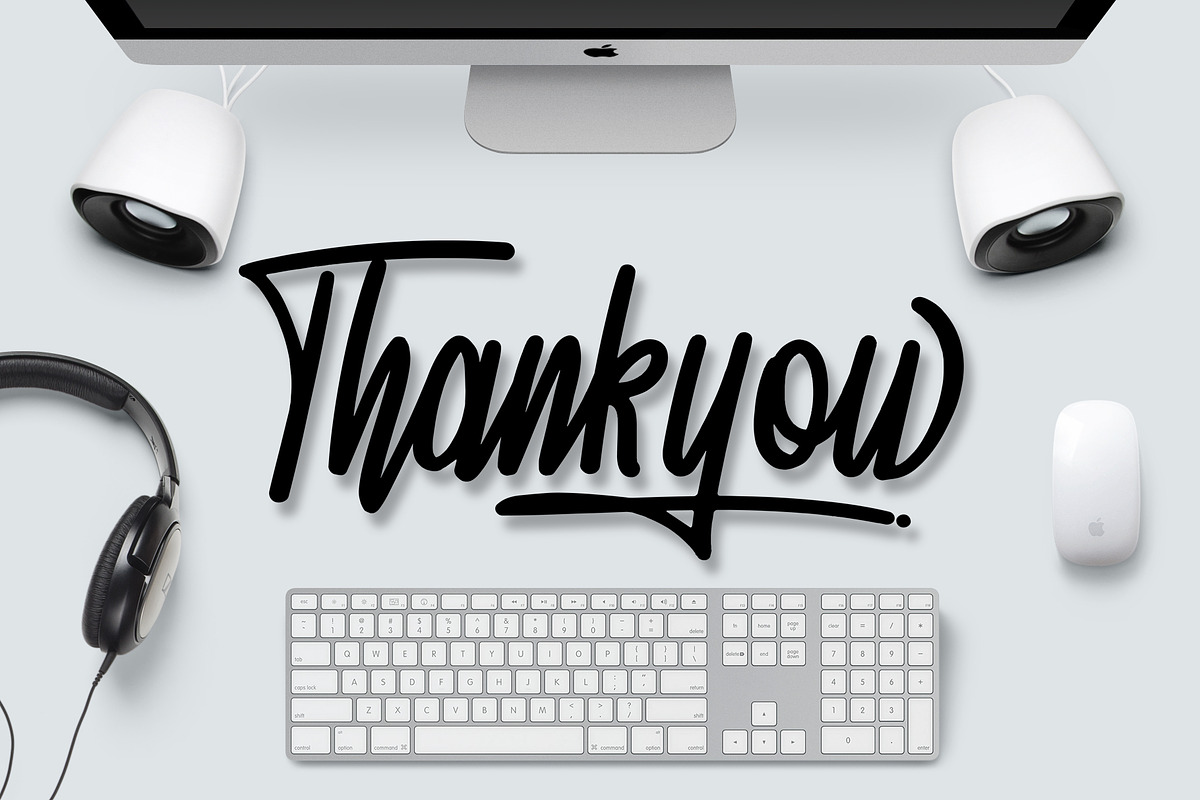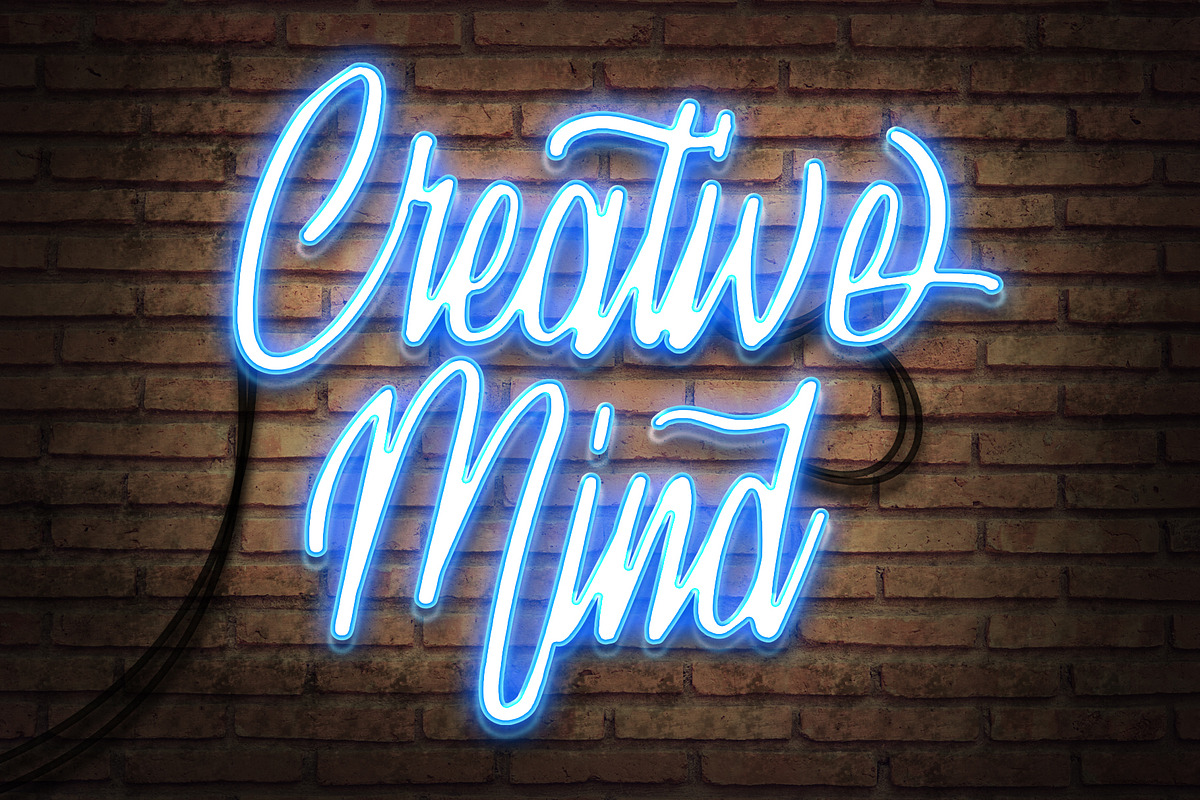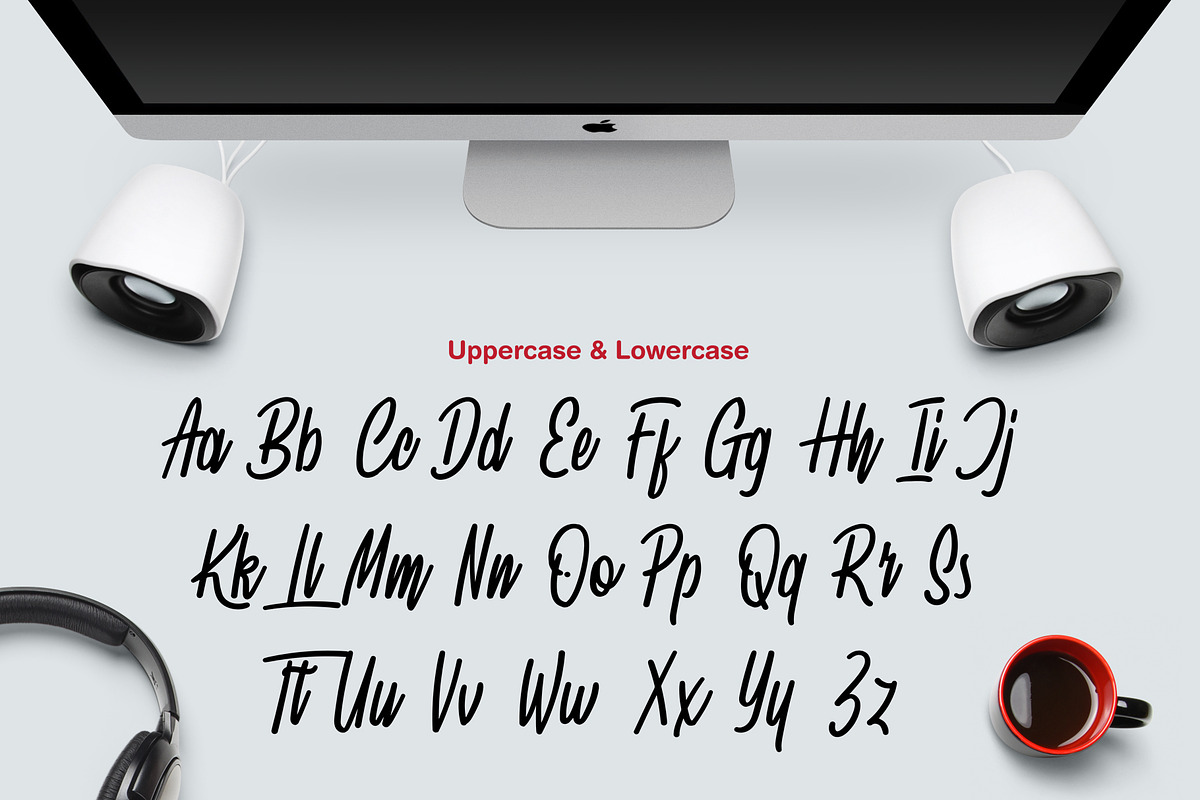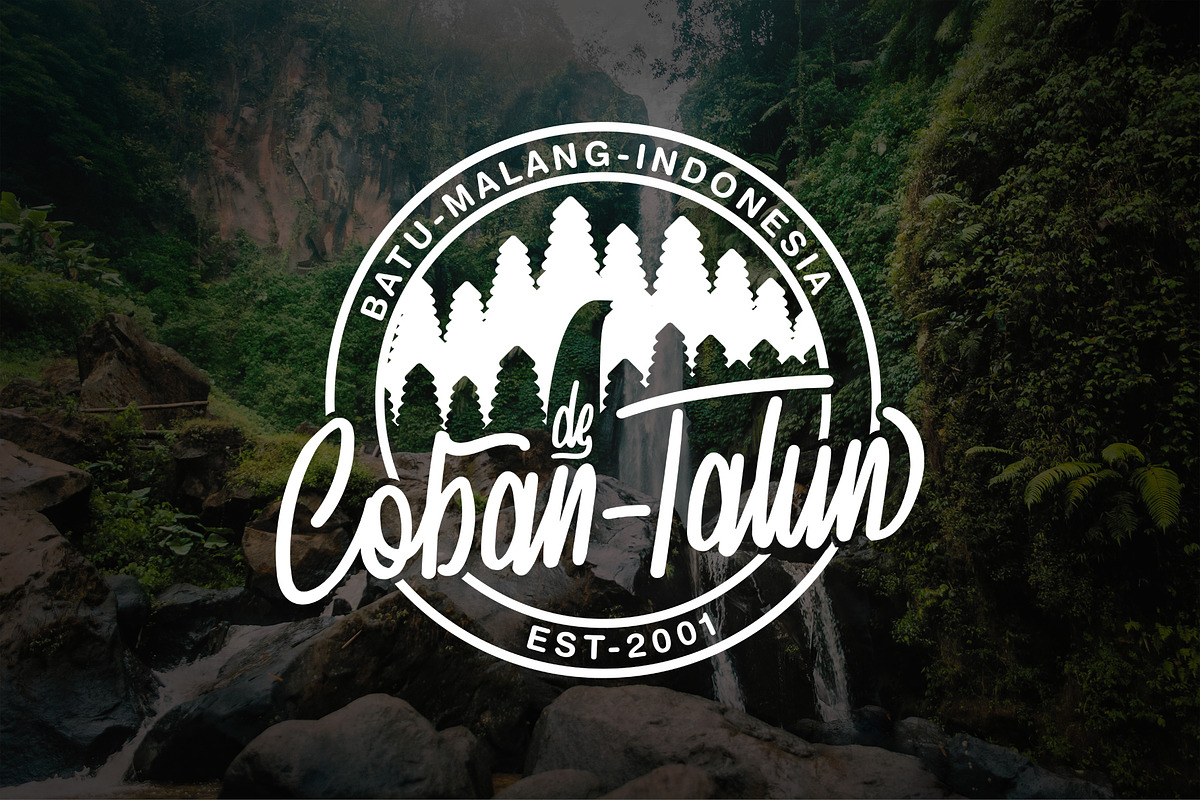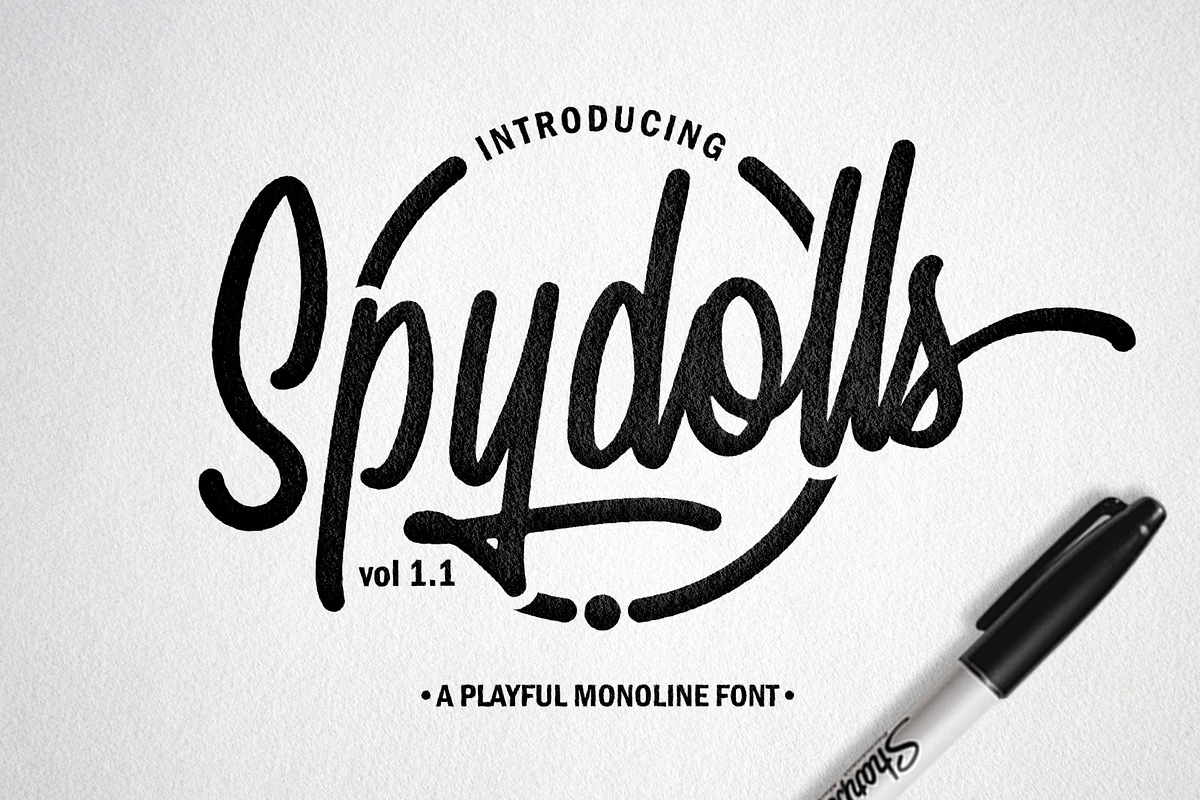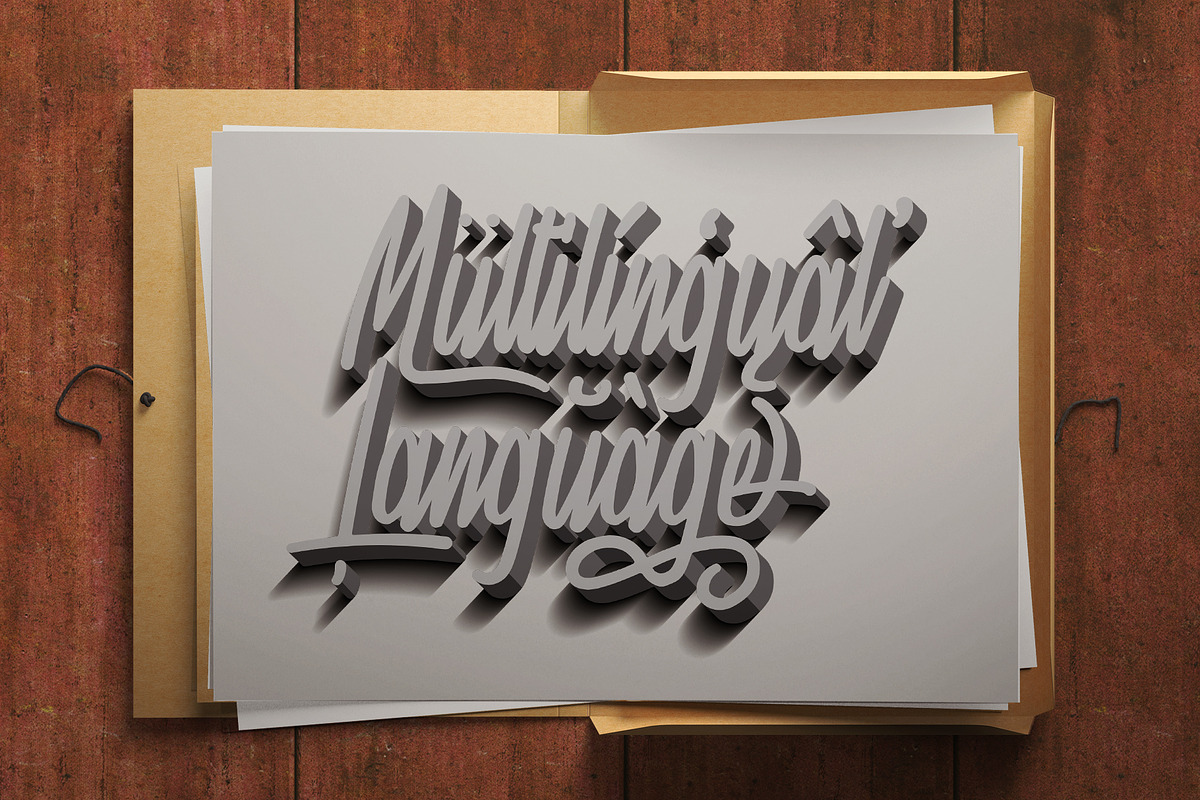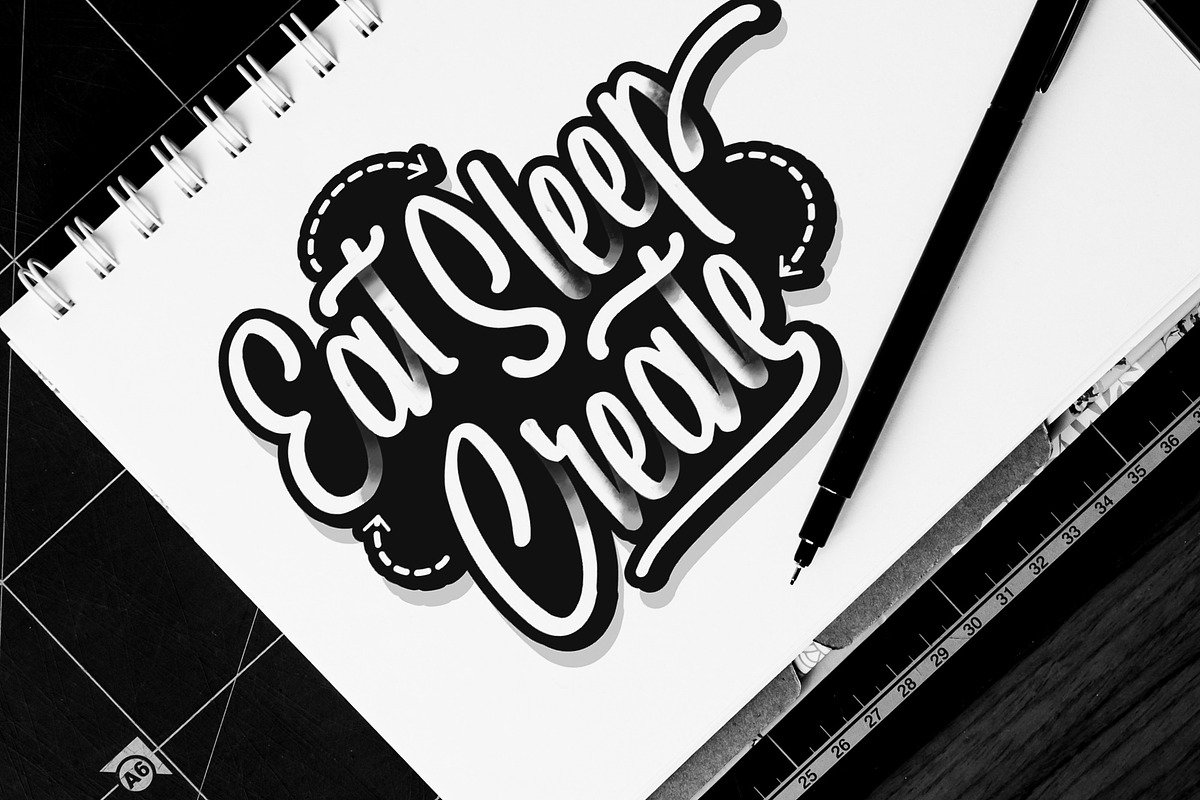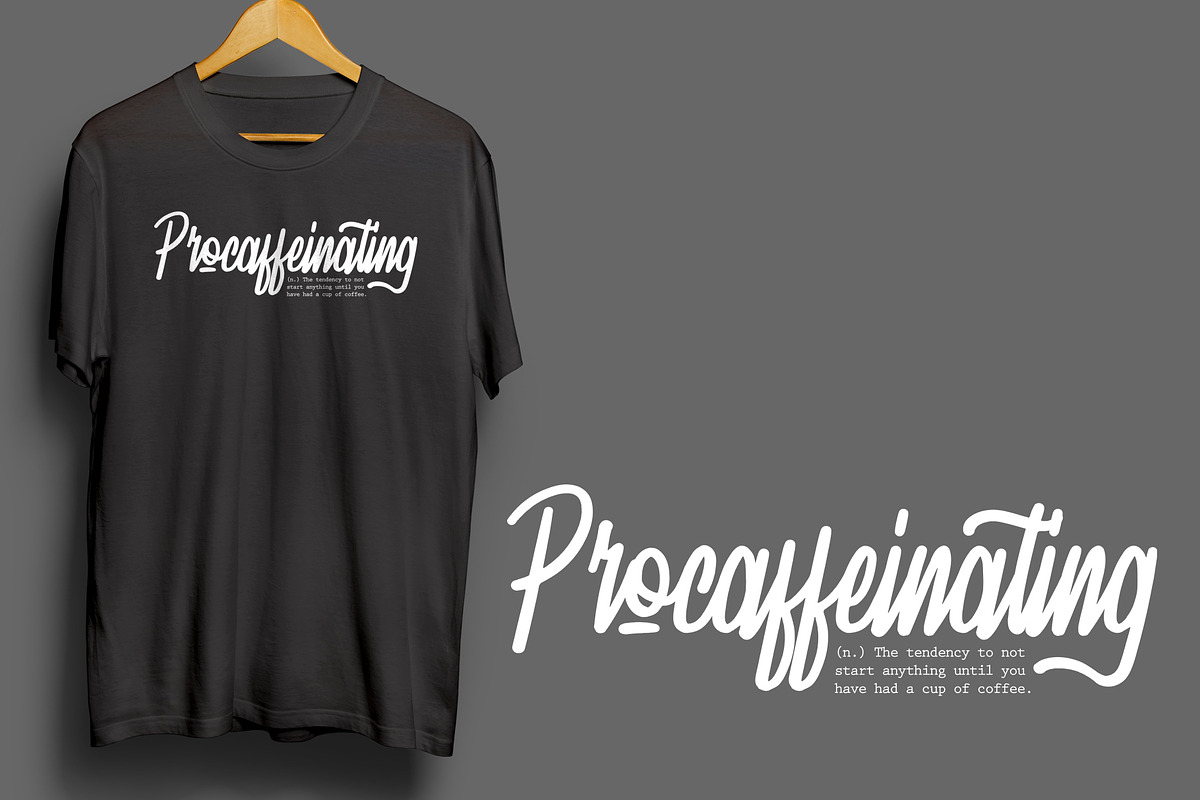
Spydolls - Playful Marker Fonts
Introducing Spydolls a playful monoline script font inspired by the handwriting of marker pen, highly recommended for your design projects. You can use it for: logo design, t-shirt, branding, prints, and much more. A total of 600 glyph with a great selection of each glyph multilingual language support comes with a standard european made you not difficult to use.
- A total of 600 glyph with a great selection of each glyph multilingual language support comes with a standard european made you not difficul
Spydolls - Playful Marker Fonts by SemutHitam Creative fits naturally into Branding, posters, packaging, typography.